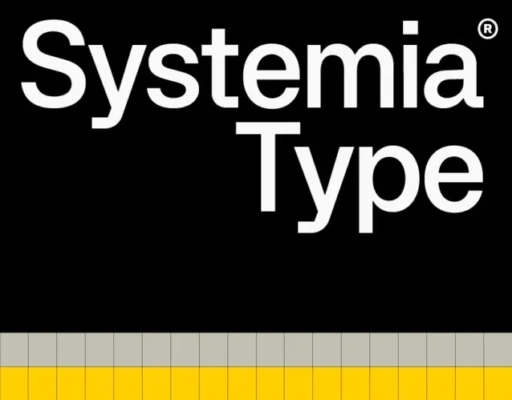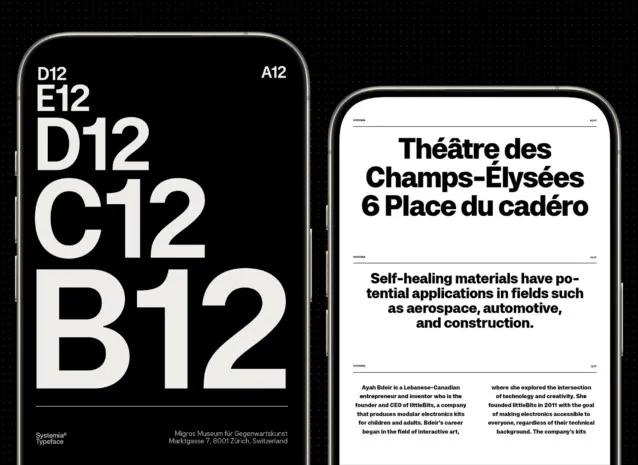
Systemia Font Family
Systemia is a versatile variable font that shifts smoothly from bold to light. Inspired by 1980s tech design, it adds a retro‑futuristic touch. Created by Peregrin, it uses simple, refined shapes for clear, confident text. Systemia works equally well in UI, branding, or print. Its flexible weight range adapts to any typographic need.
Designer: Peregrin Studio
Systemia Font Family is a Sans Serif Fonts font that brings a professional and versatile look to your projects. Systemia is a versatile variable font that shifts smoothly from bold to light.